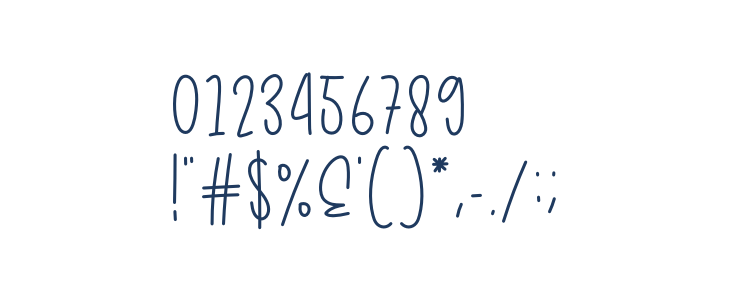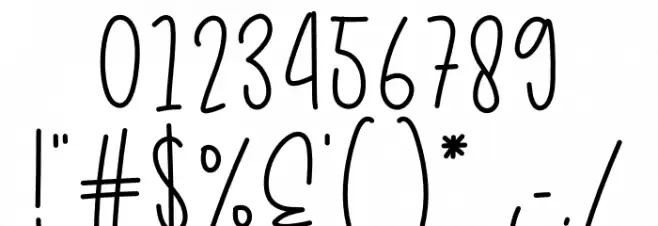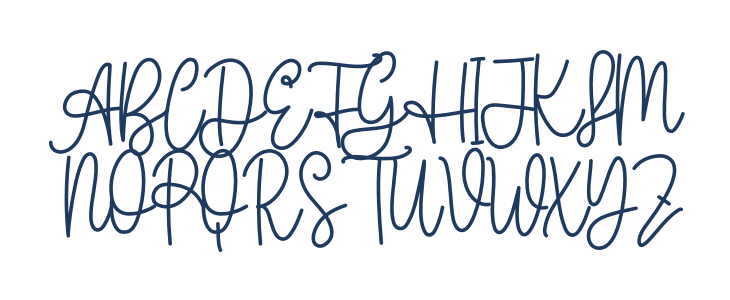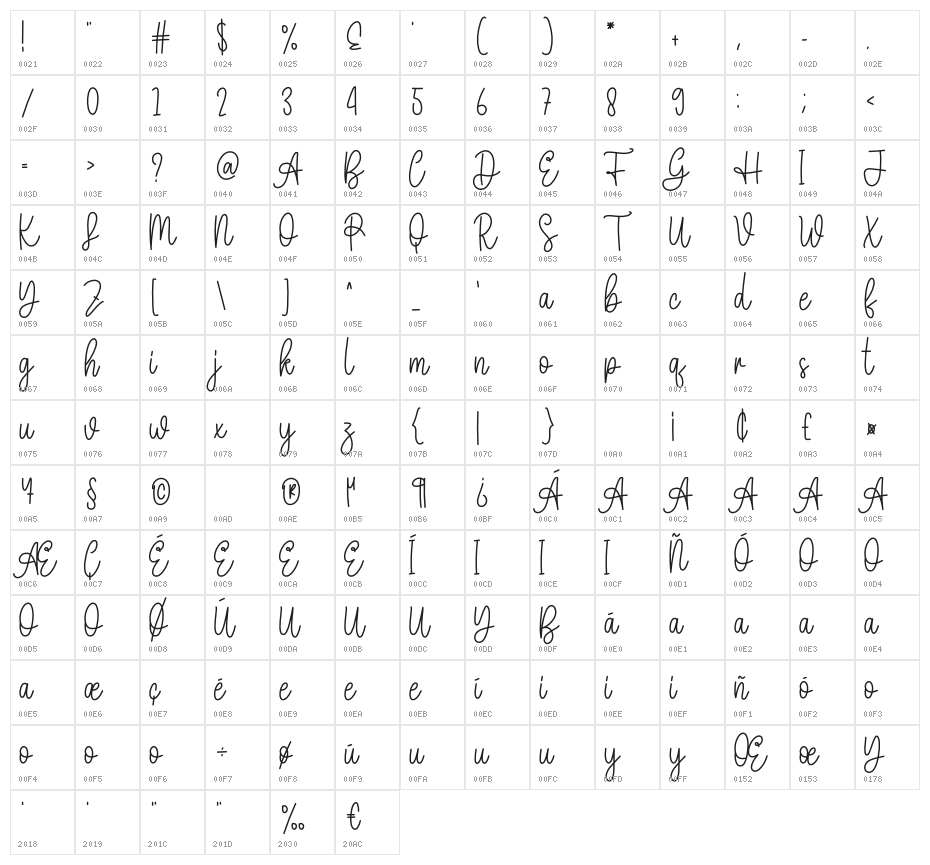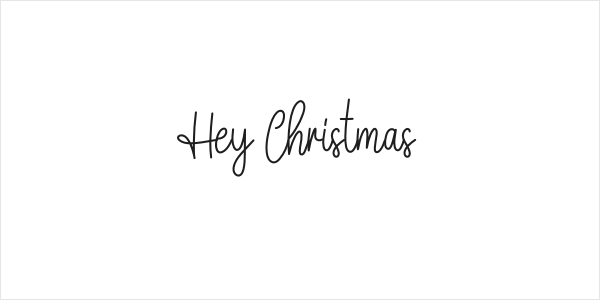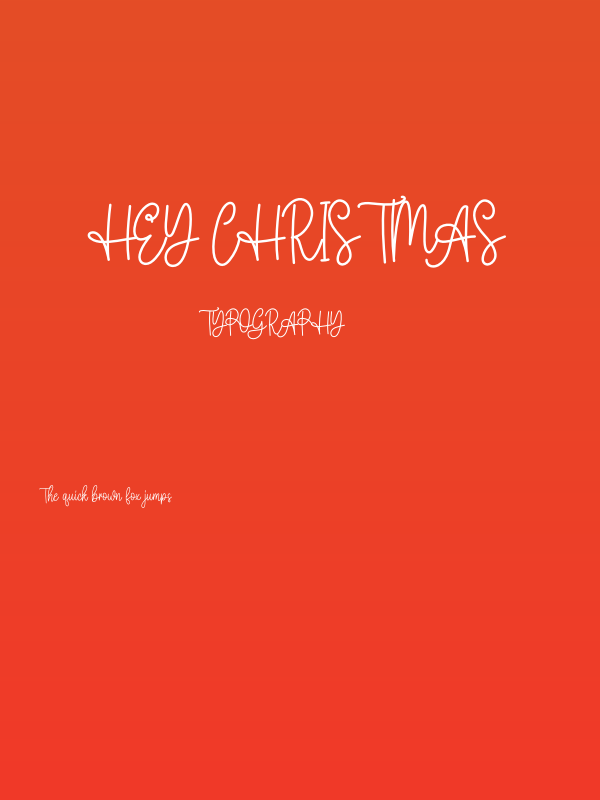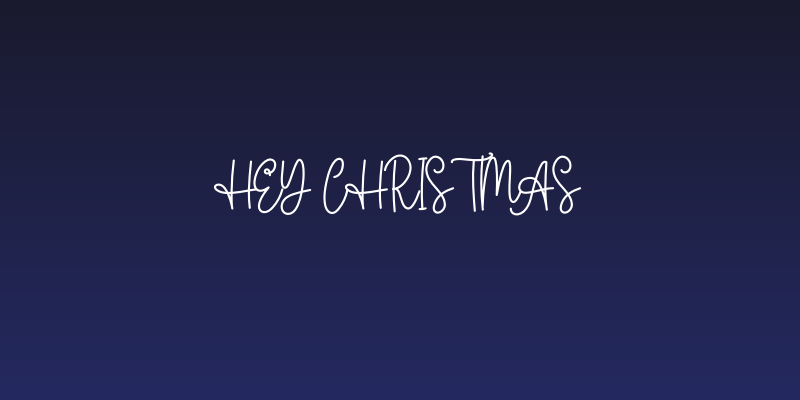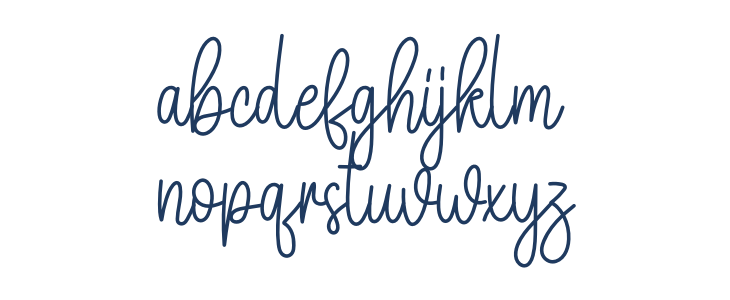
Hey Christmas Font
Hey Christmas Description
A playful, handwritten script font with tall, narrow letters and fluid, connected strokes. The characters have a casual, whimsical feel, featuring variable line thickness and a natural, organic flow. Uppercase and lowercase letters are distinct, with some exaggerated ascenders and descenders.
Overall StyleDecorative, Playful, Handwritten
Use CaseGreeting cards, Invitations, Logos, Social media graphics
Proposed ProjectsGreeting cards, invitations, holiday designs, playful branding, social media graphics.